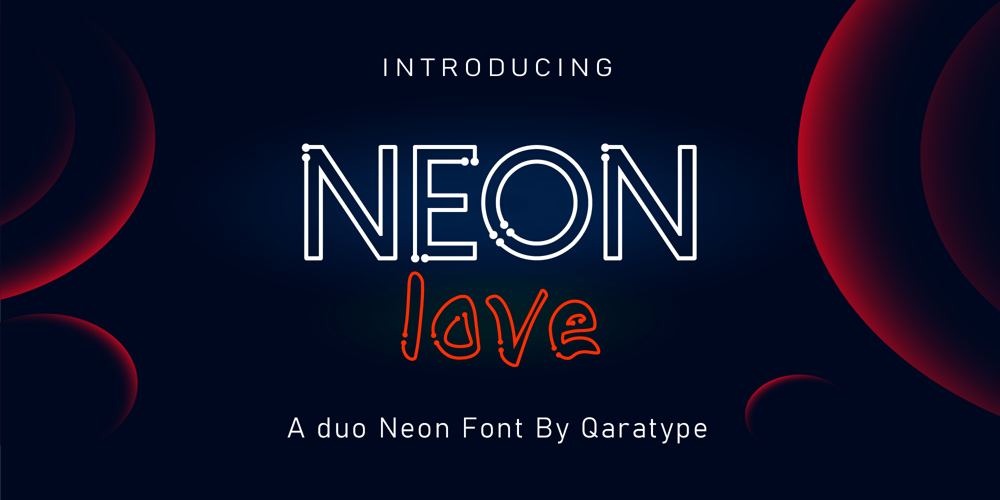
NEON Love Font Family was designed by Anass Qara and published by Qaratype. NEON Love contains 1 styles and family package options. NEON love is a typeface inspired by real world neon light signs. You can create wall art prints, greeting cards, snapchat geofilter designs, invitation designs, t-shirts, and more. This font is perfect for adding your own glowing light effects or can be used to actually design real world neon signs. …Main Features: Uppercase & Lowercase letters Numbering and Punctuation